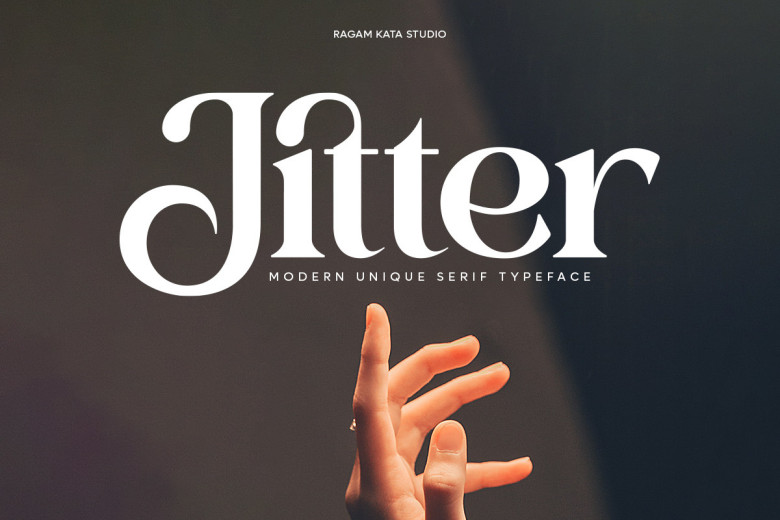
Jitter Font
Jitter is a modern serif font designed specifically for magazines, fashion brands and cosmetic companies, advertising campaigns, invitations cards, art quotes, home decor projects, book/cover titles or special events.
Jitter Modern Serif Font